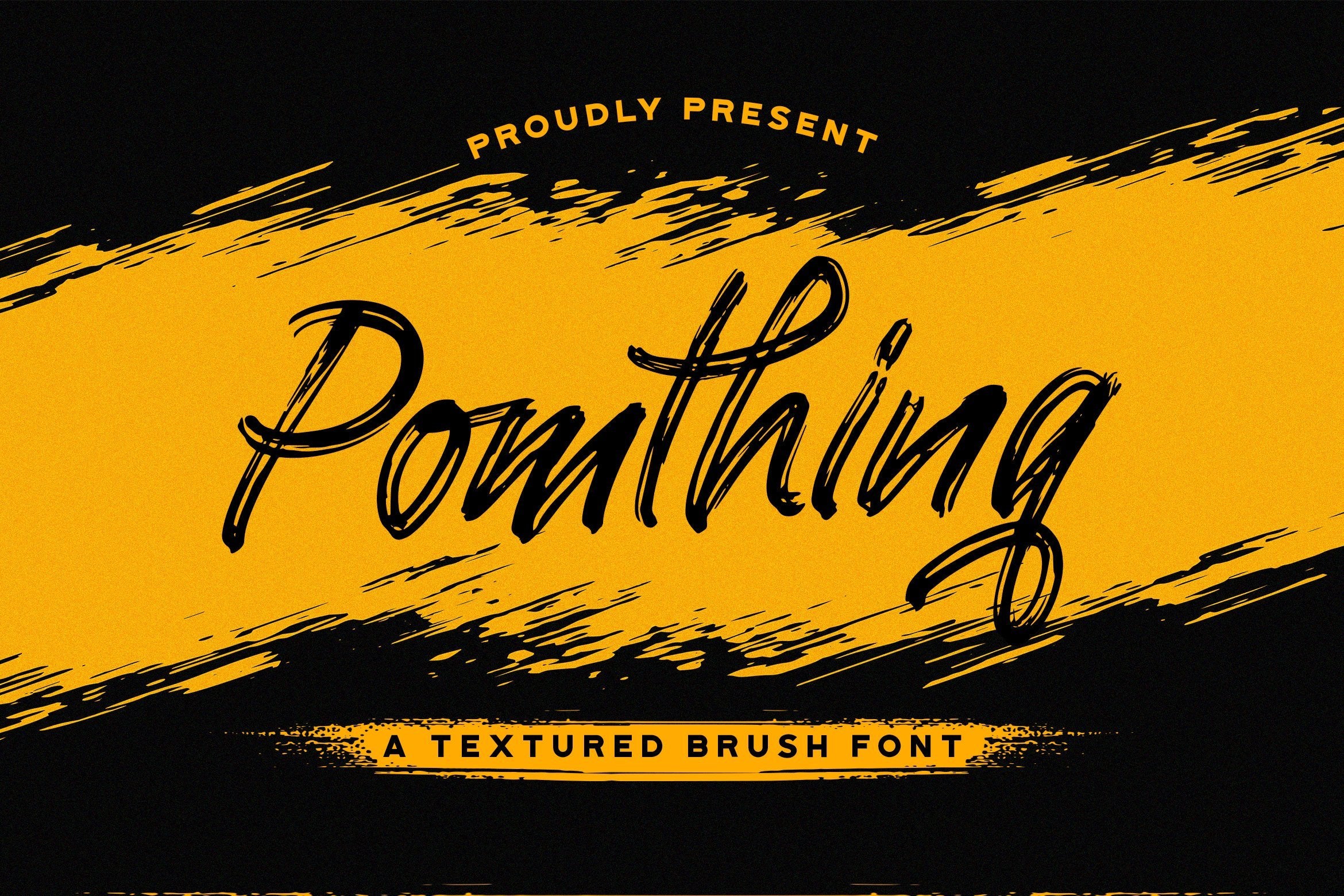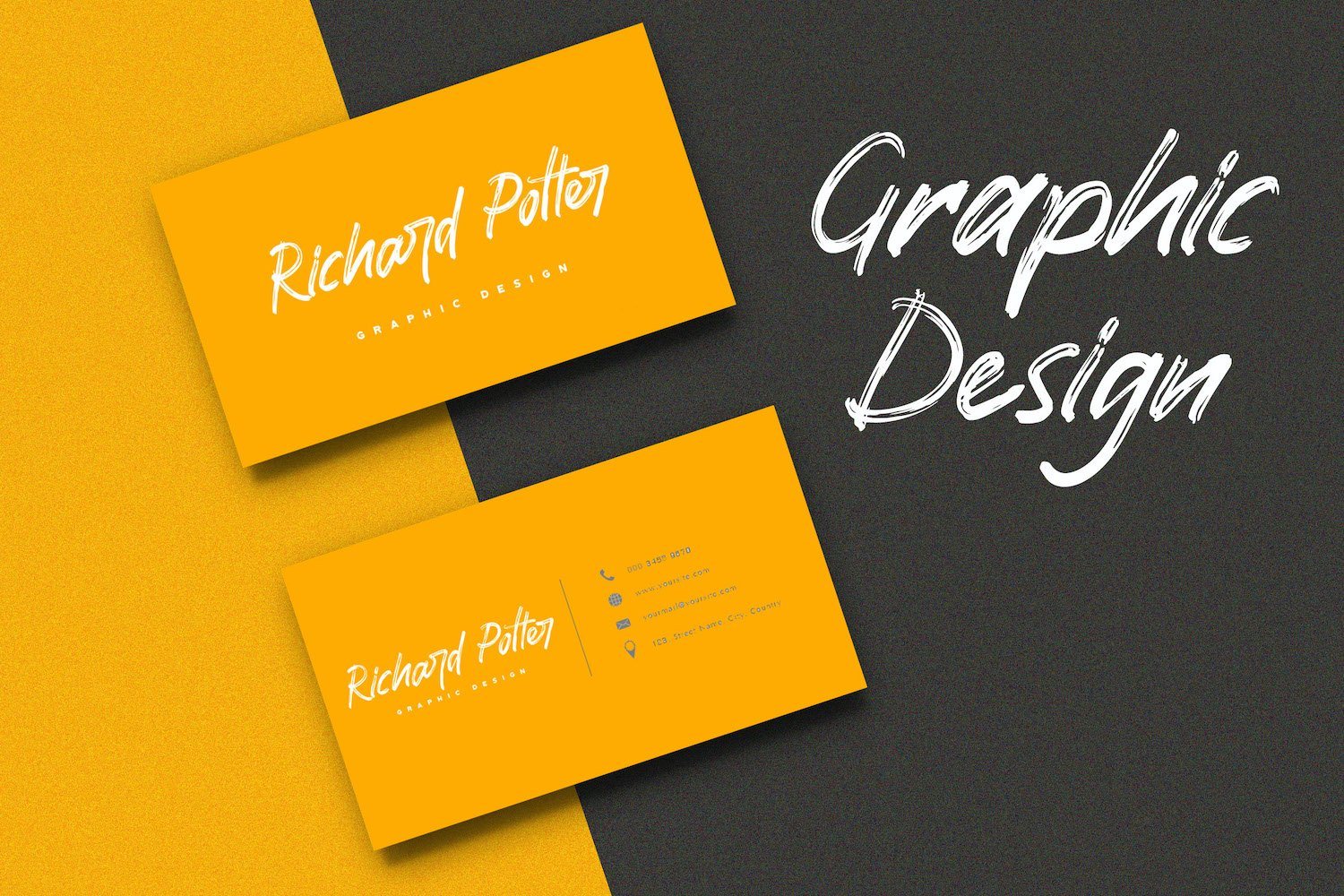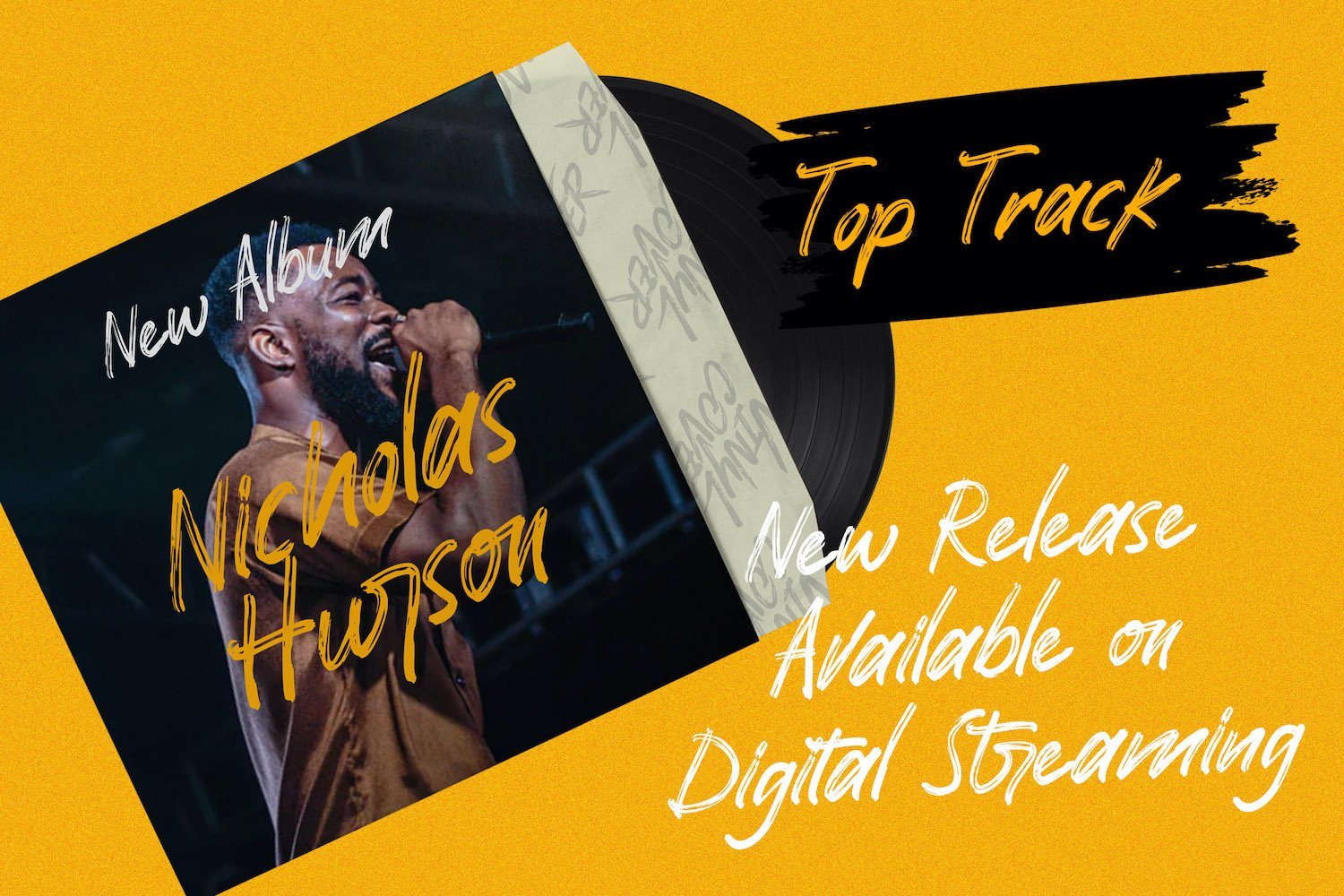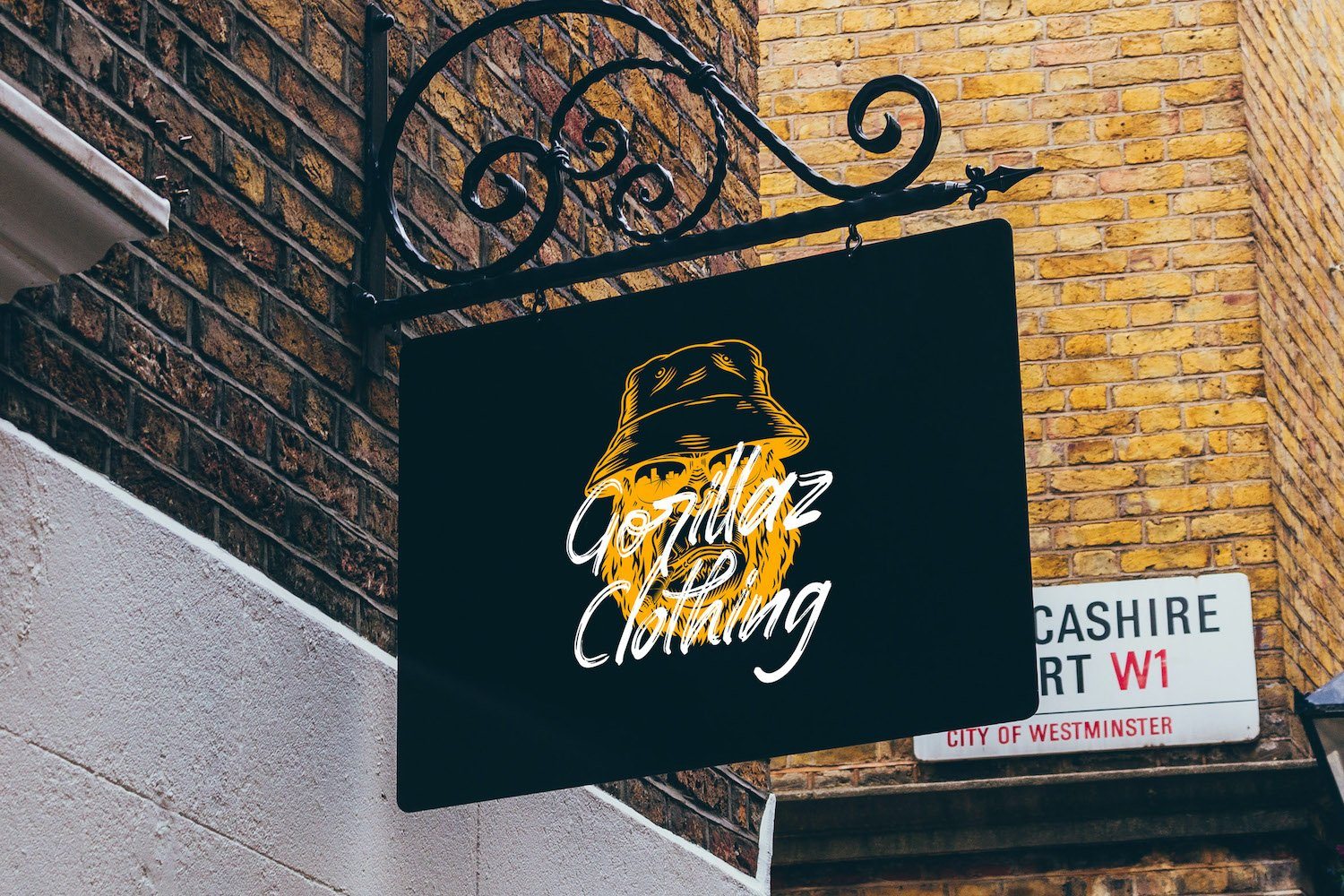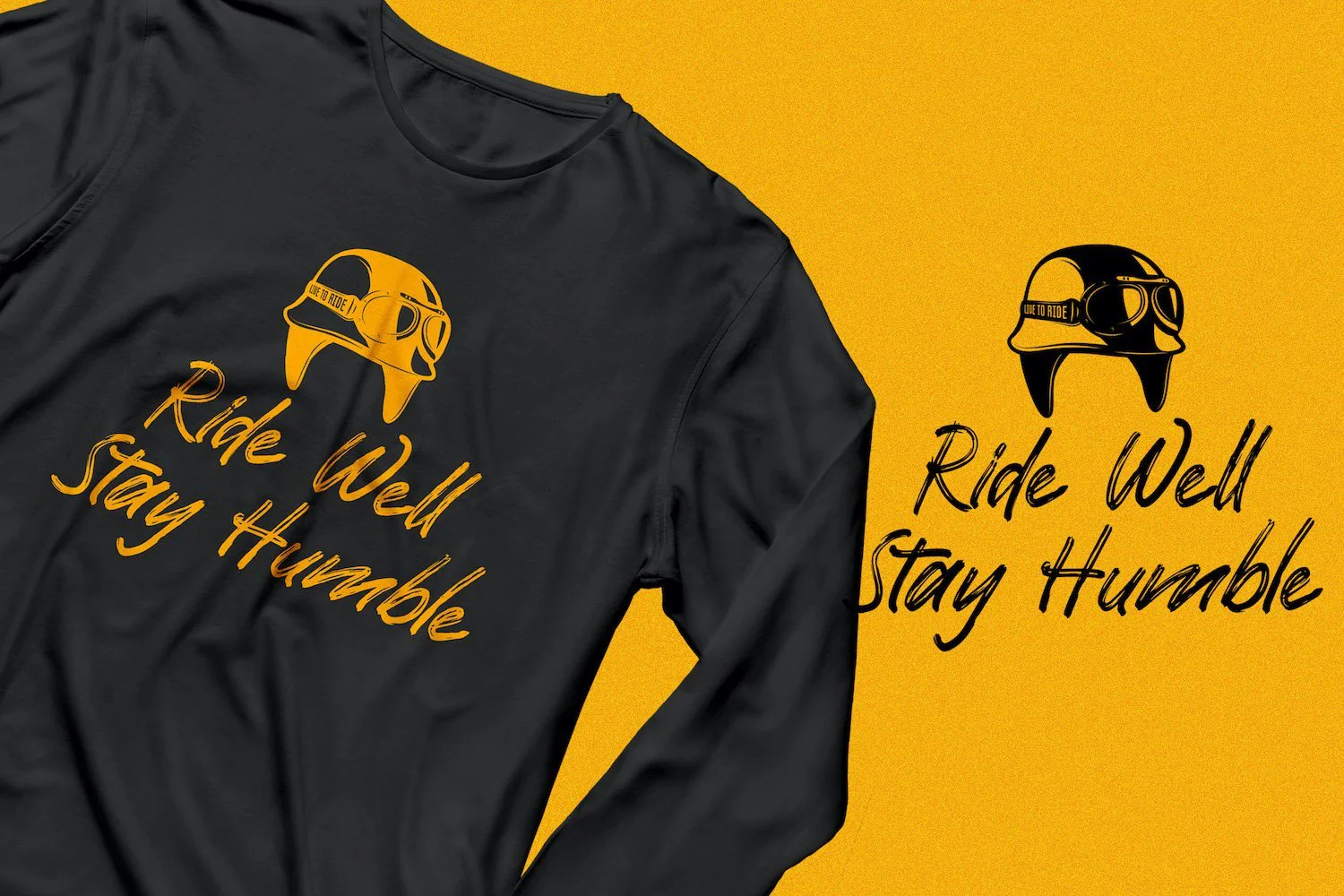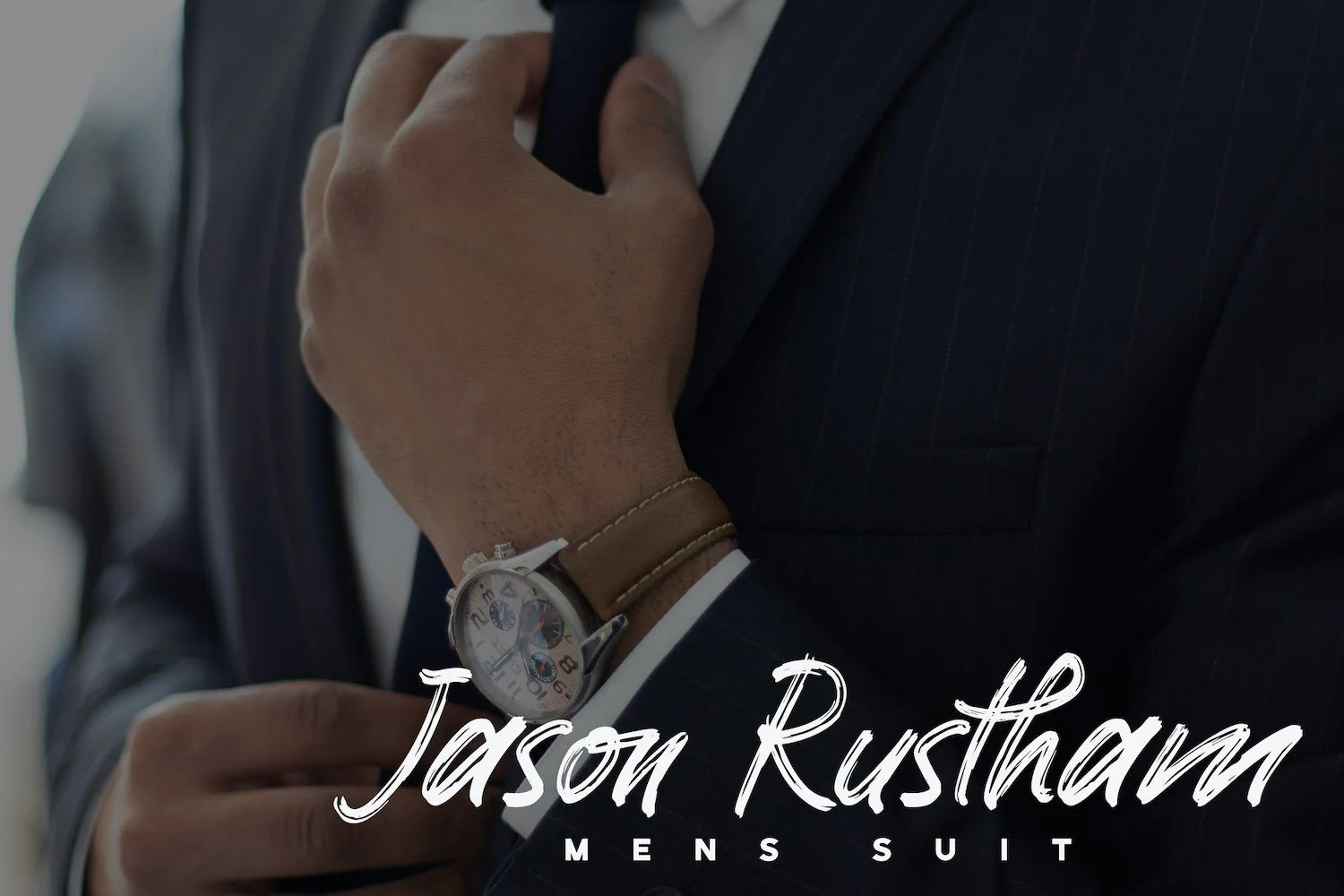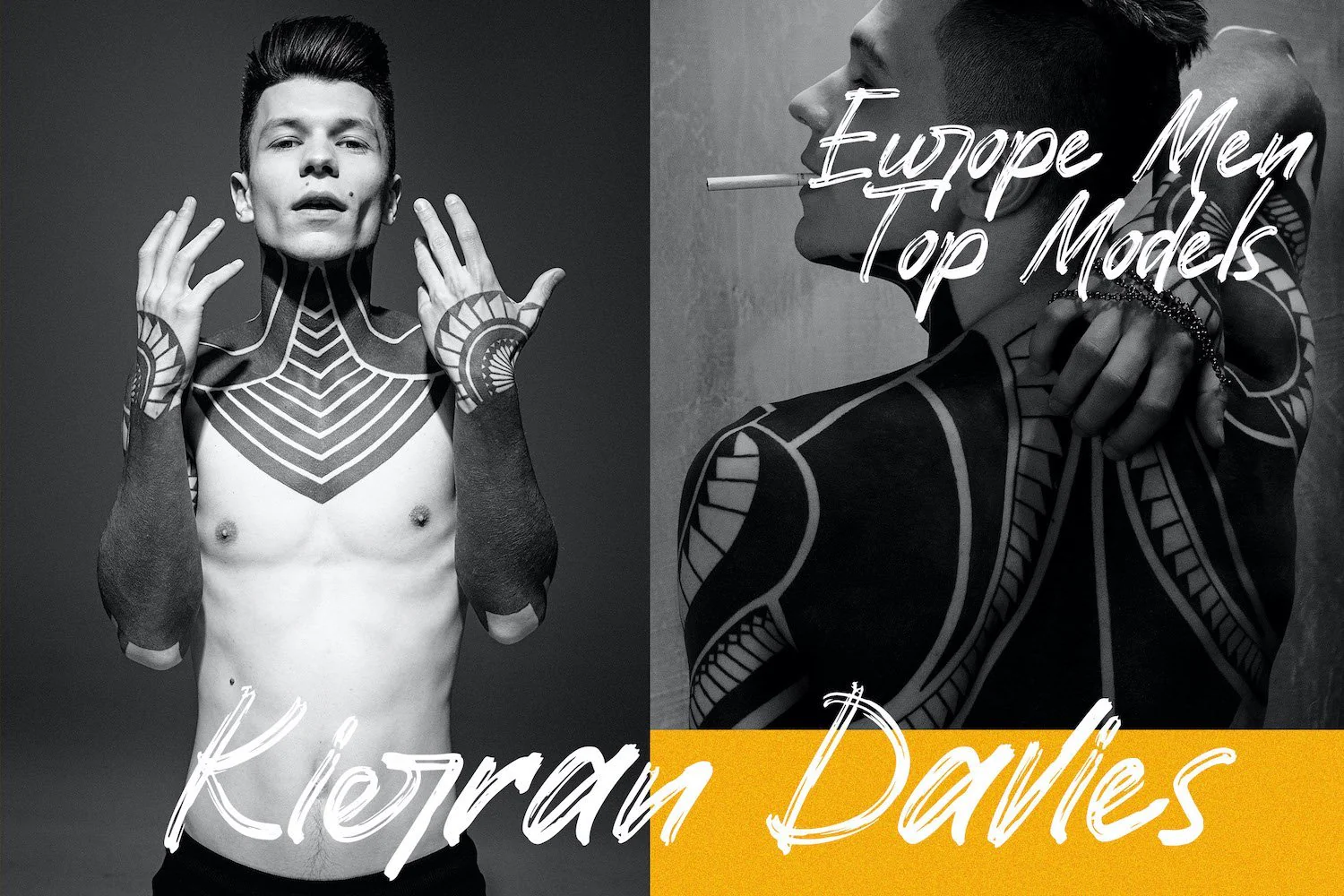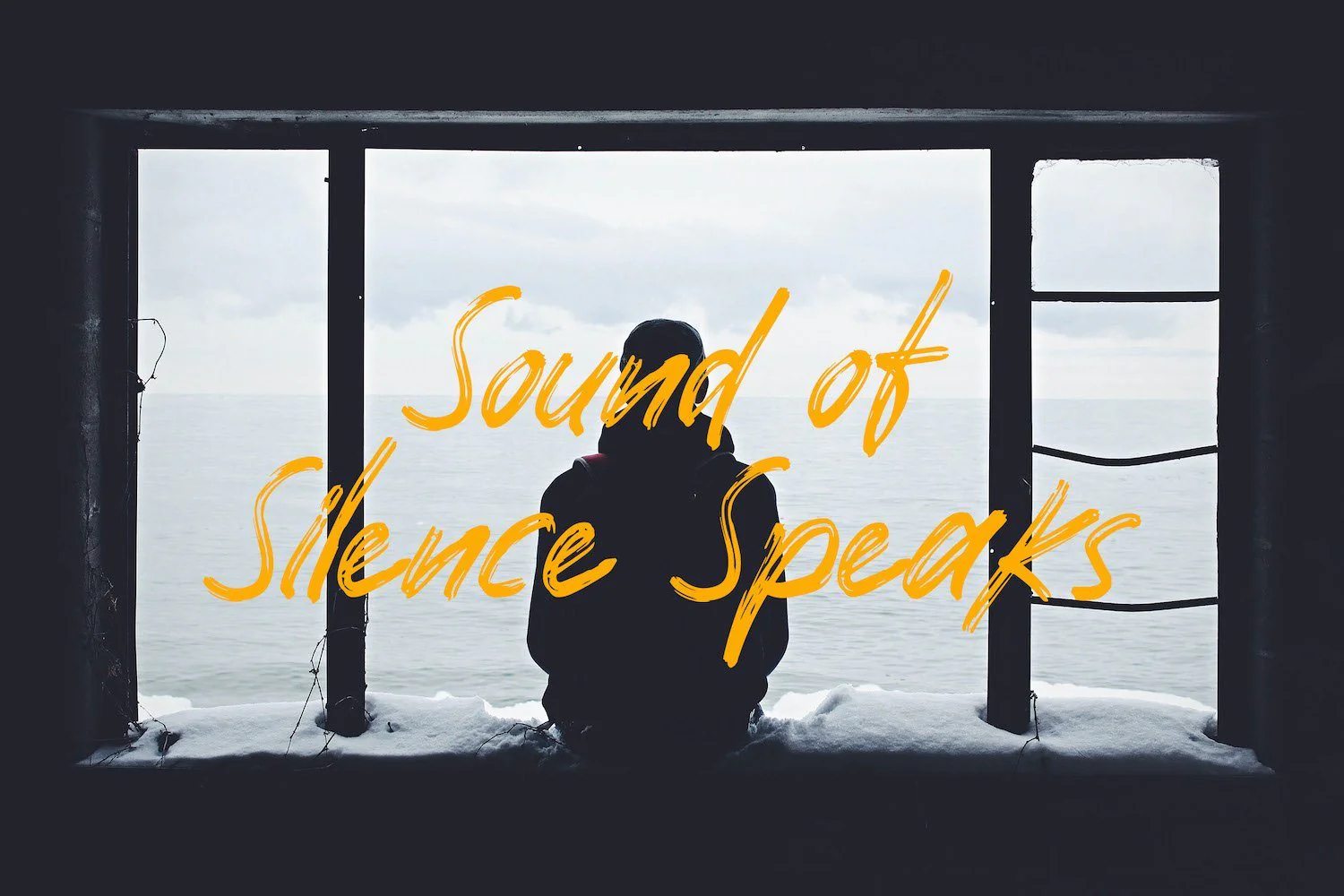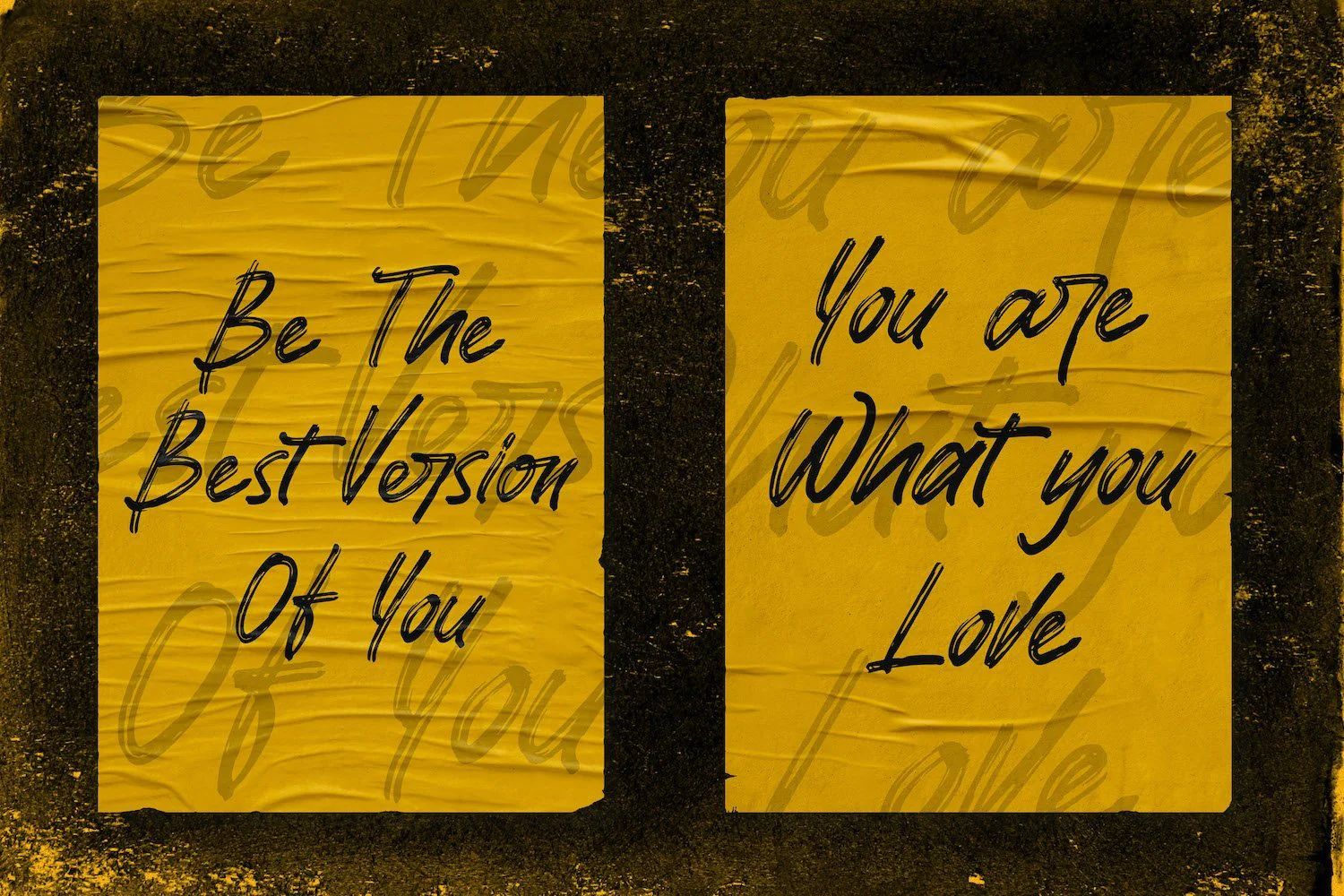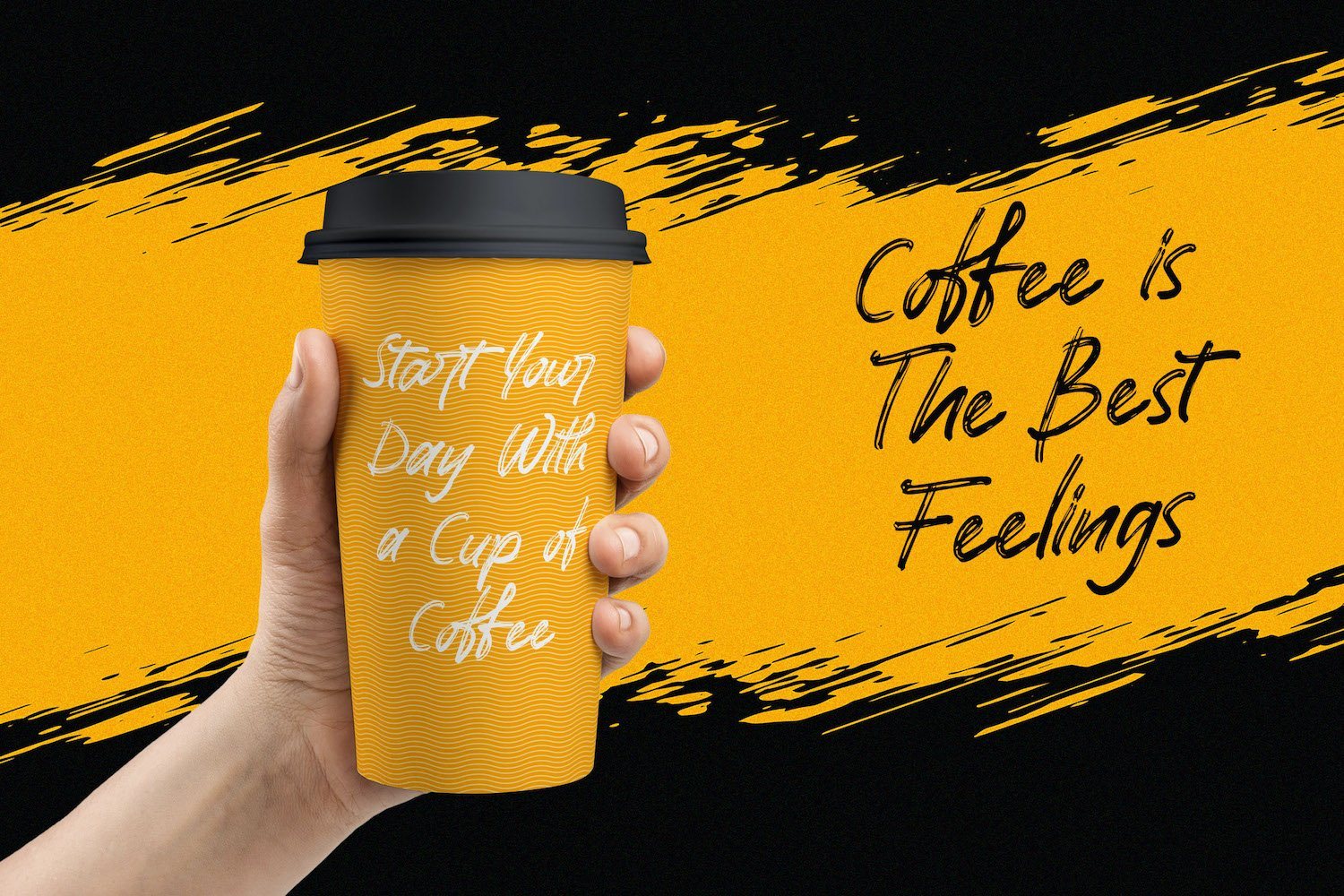
Pomthinq - Brush Script Font
Introducing Pomthinq - Brush Script Font
Pomthinq is a remarkable brush script font. Fall in love with its incredibly versatile style and use it to create spectacular designs!
Introducing Pomthinq - Brush Script Font
Pomthinq is a remarkable brush script font. Fall in love with its incredibly versatile style and use it to create spectacular designs!